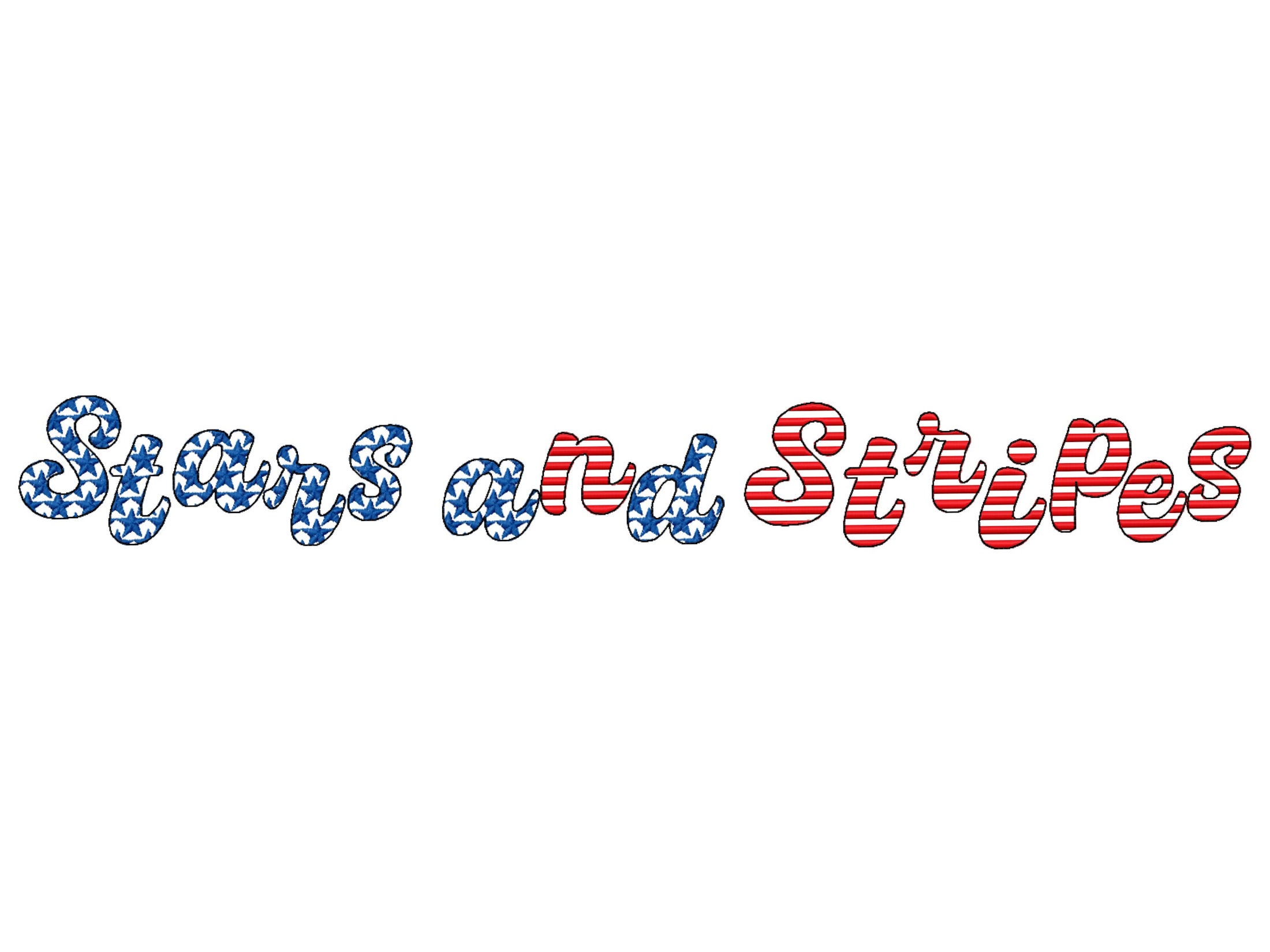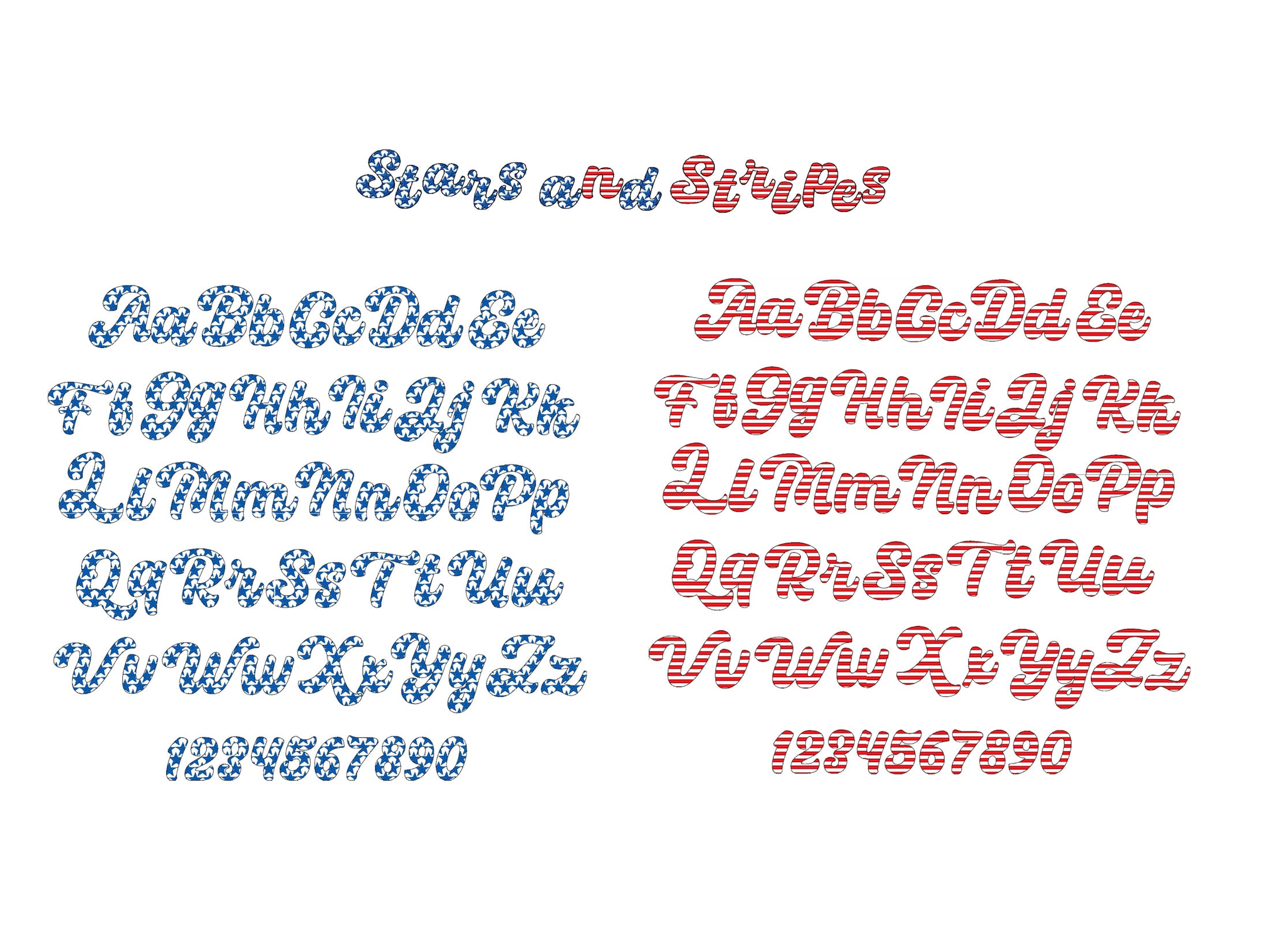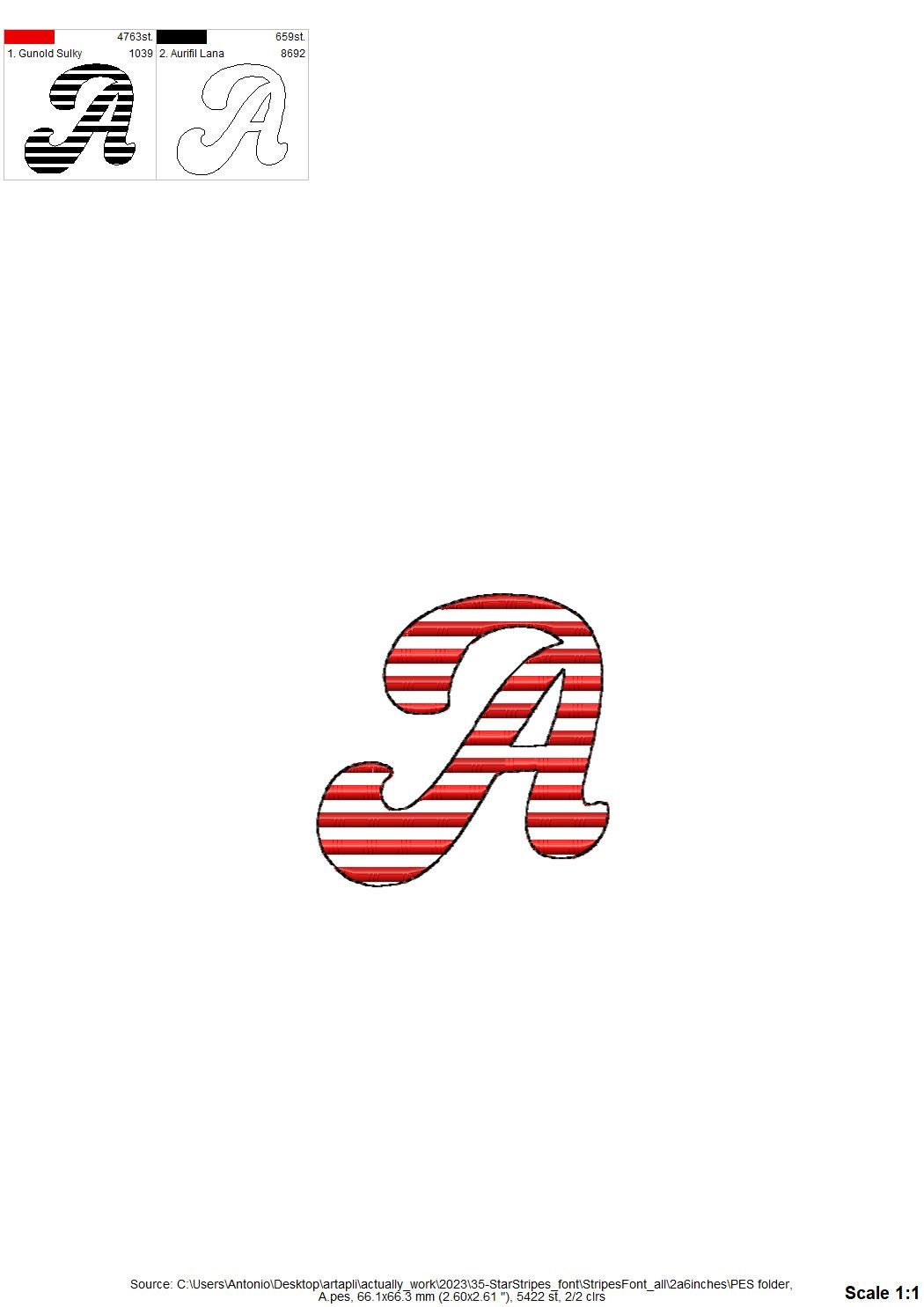
Patriotic Stars and Stripes Cursive Font SET of 2 types machine embroidery designs alphabet letters monogram 4th July Independence Day fonts
This is a light stitch font. The background fabric looks through. Stunning effect!
Included 2 fonts in matching sizes. Just combine and match as you like.
Uppercase and lowercase letters, numbers and punctuation & . , -